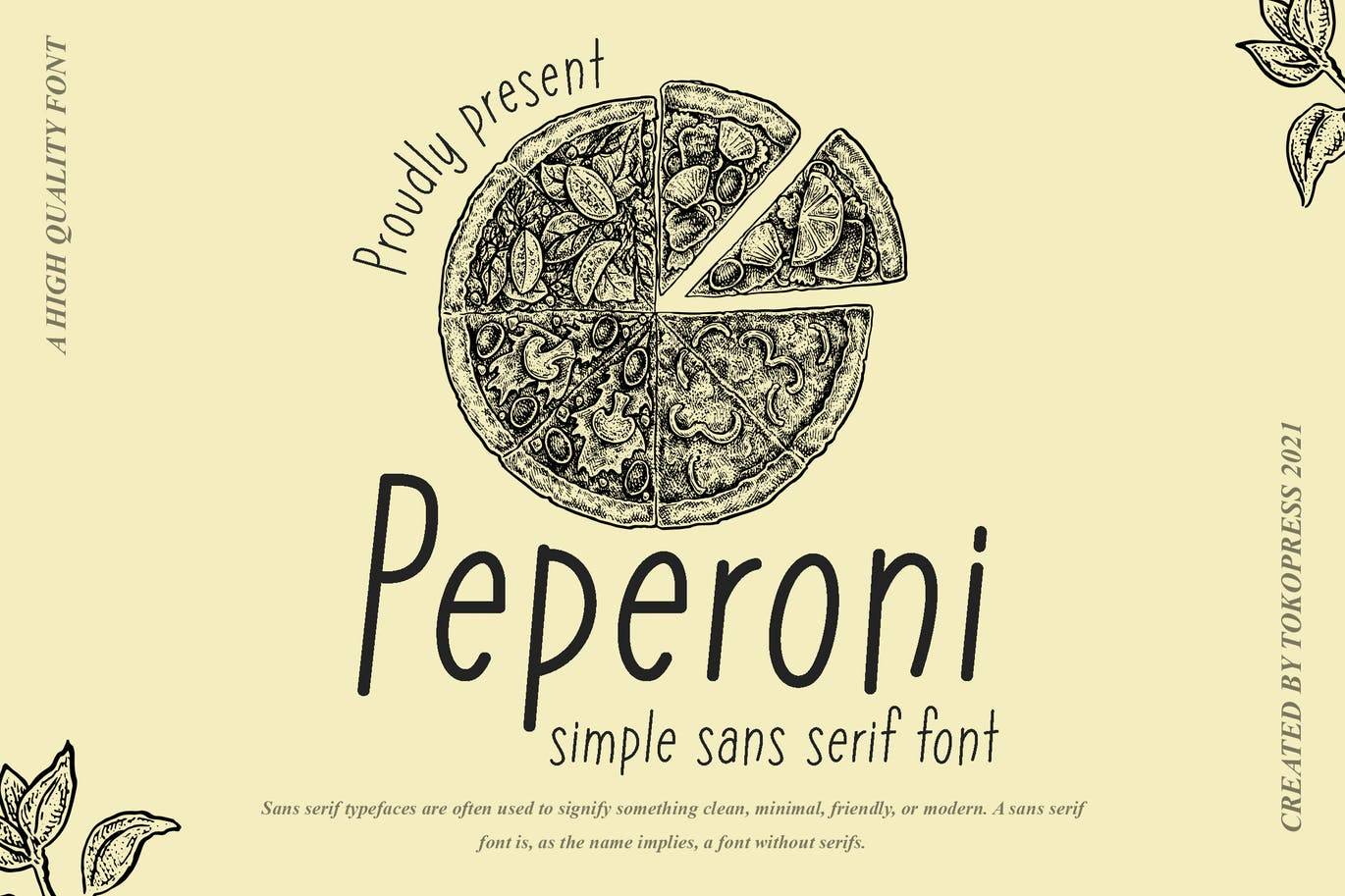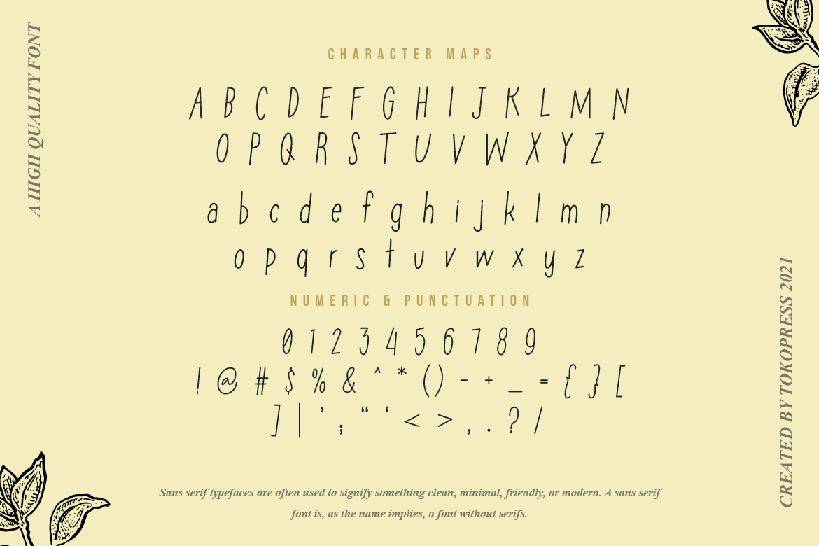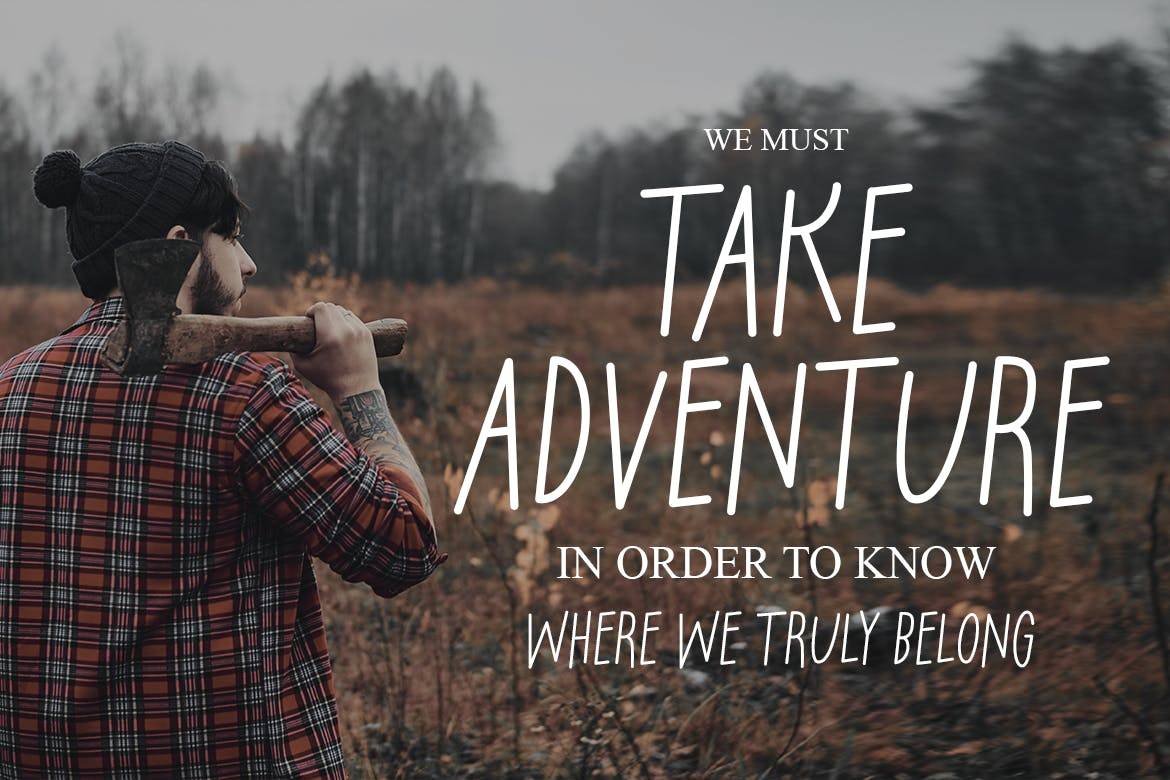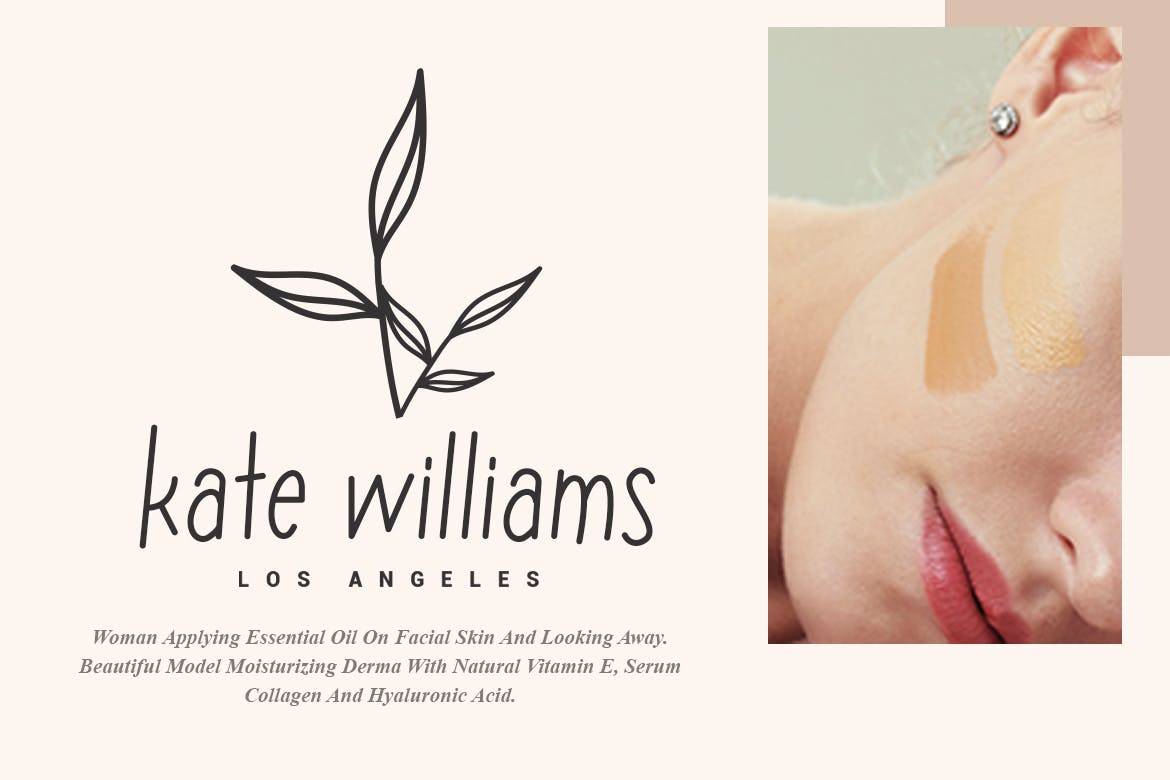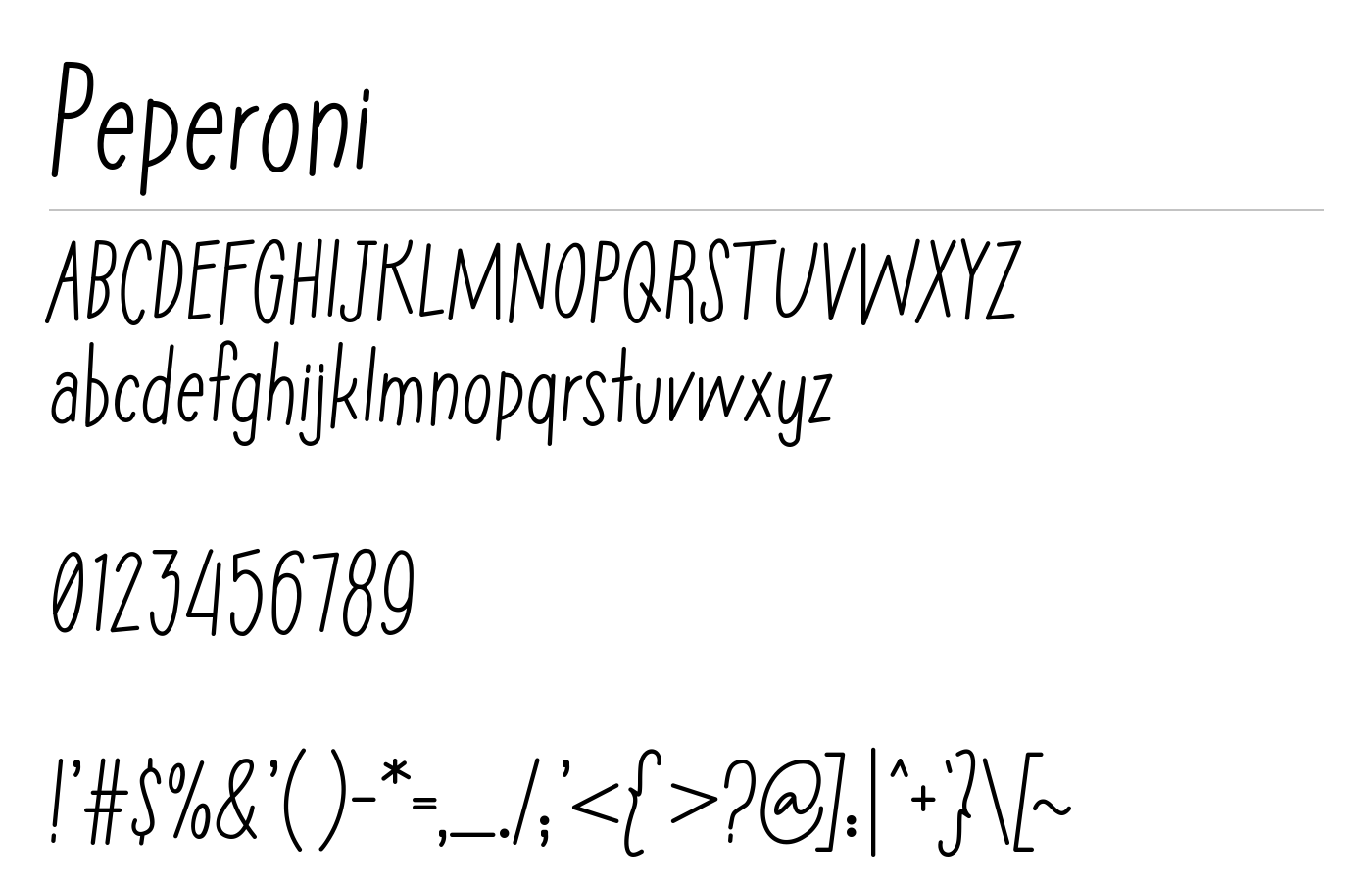
Peperoni Font is a tall, narrow sans serif typeface with a playful, handwritten feel. Its thin strokes and subtle irregularities give it a casual, friendly personality that works well for informal designs like logos, posters, and creative projects where a personable and approachable tone is desired. This font’s light weight and quirky letterforms make it ideal for display use rather than long body text, adding a unique charm to any design.
Peperoni Font
About Peperoni Font
| Font family | Peperoni Font |
| Release date | 2021-08-23 |
| Designer | TOKOPRESS Team |